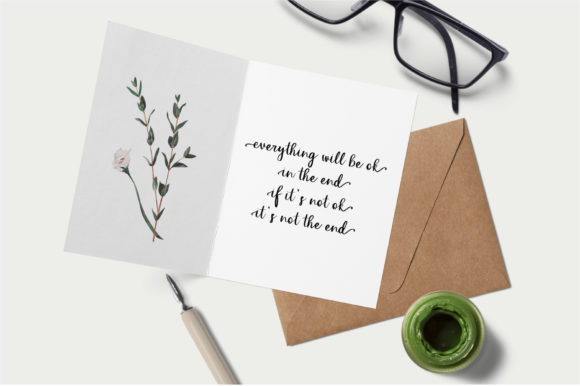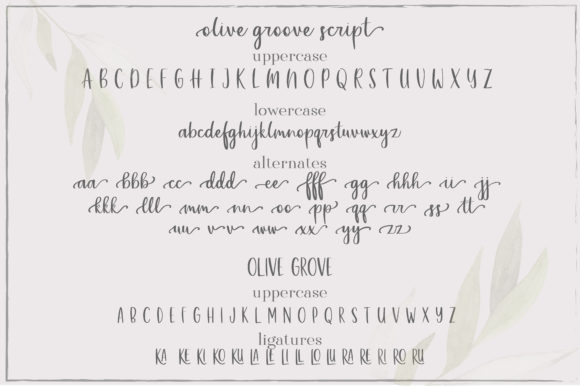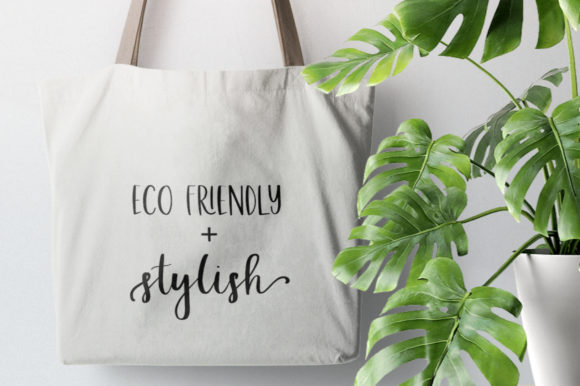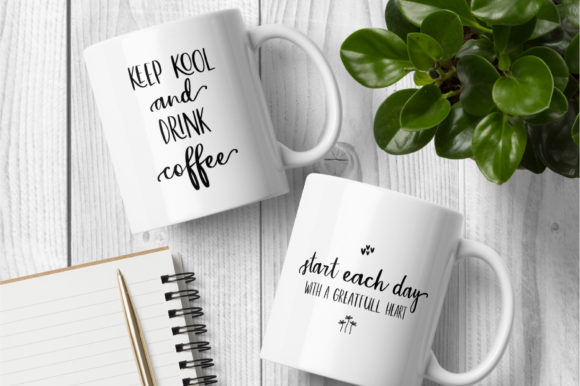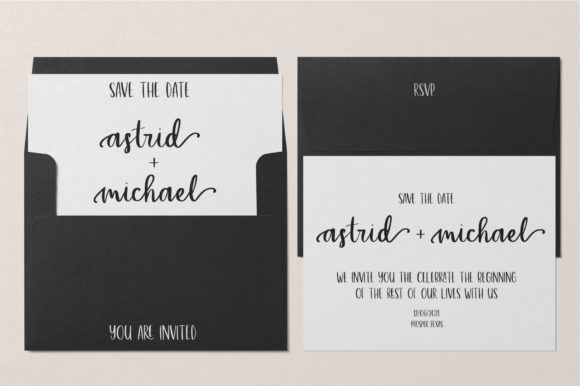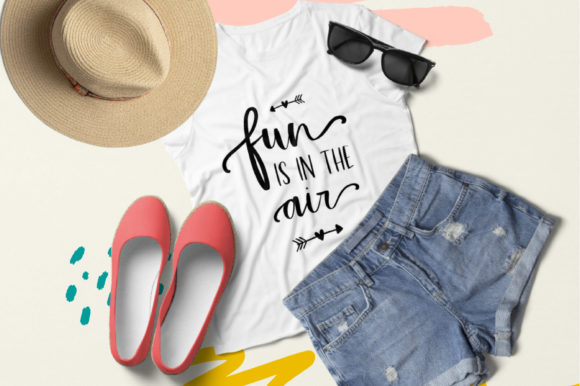
Introduction to Olive Grove Font
Have you ever stared at a blank page, waiting for the perfect font to come to life and turn your creative project into a masterpiece? I know I have. The search for the ideal font can be a daunting task, especially when you’re aiming for a high-quality, elegant look that will leave a lasting impression. That’s why I’m thrilled to introduce you to the stunning Olive Grove Font, a beautiful duo font that’s sure to elevate your designs to the next level.
This free download is a game-changer for designers, offering a versatile design resource that can be used for everything from logos and branding to invitations and wedding designs. With its thin and delicate lines, the Olive Grove Font is perfect for creating a sophisticated, modern look that’s sure to stand out. Plus, its transparent background makes it easy to layer and manipulate, giving you endless possibilities for creative expression.
Key Features of Olive Grove Font
- High-quality design for creative projects, offering a unique and elegant touch.
- Transparent background option for seamless integration with any design element.
- Designed with a clean and minimalist approach, making it suitable for various design applications.
- Unique characteristics include subtle texture and organic feel, adding a natural touch to any design project.
Honest Review: Olive Grove Font
I recently stumbled upon the Olive Grove Font while searching for a high-quality design resource to enhance my creative project. The font is available for a free download, which was a pleasant surprise. The transparent background adds an extra layer of flexibility when working with different design elements.
- ✨ Unique and elegant design that stands out from the crowd
- ✨ Highly legible and suitable for various font sizes
- ✨ Includes a transparent background, ideal for creating visually appealing designs
- ⚠️ Limited font weights and styles, which may not be sufficient for complex design projects
Overall, I’m impressed with the Olive Grove Font. It’s a fantastic addition to any design arsenal, and its free download makes it an excellent resource for designers. While it may have some limitations, it’s still a high-quality font that can elevate any creative project.
Tips for Getting the Most Out of Olive Grove Font
Use the Olive Grove Font in conjunction with a transparent background to create a clean and modern design. Experiment with different font sizes and styles to add depth and visual interest to your project.
The Olive Grove Font is ideal for use in logos, business cards, brochures, and other marketing materials. Its high-quality design and transparent background make it a versatile resource for any creative project.